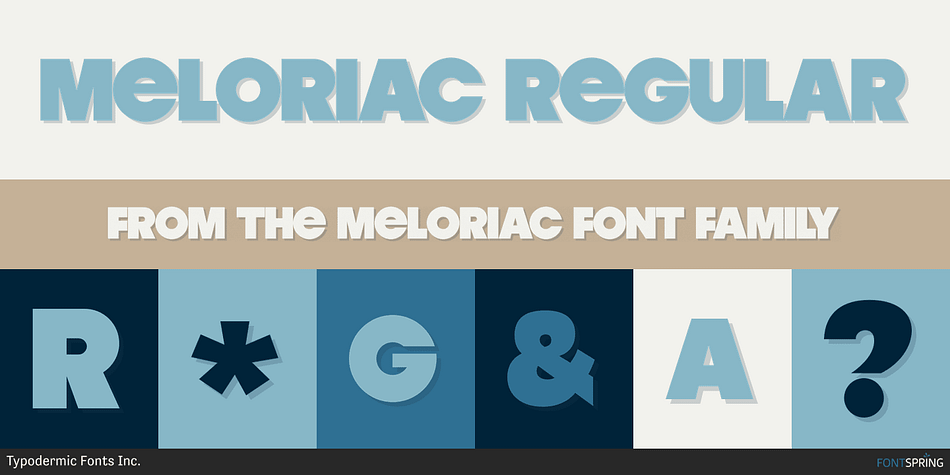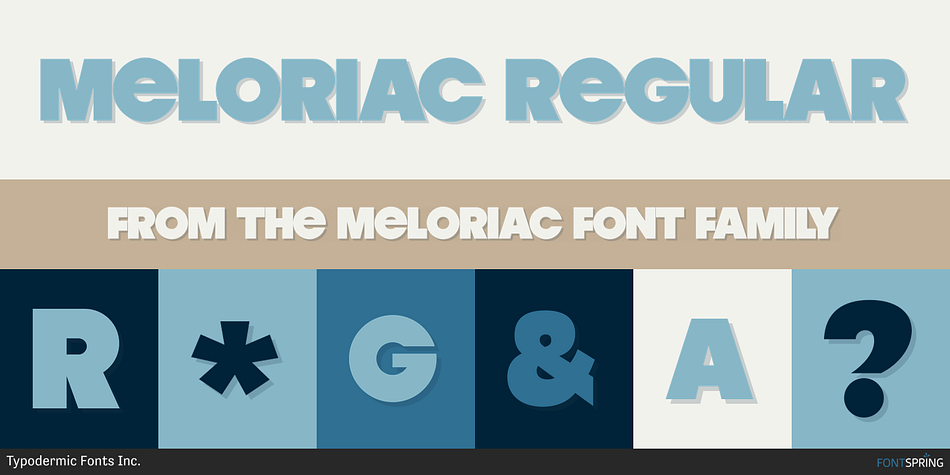
Meloriac is a display sans font published by Typodermic Fonts Inc.
Meloriac is a unicase display typeface with a pseudo-retro feel. It’s an extra-heavy tribute to Futura Extra Bold and Avant Garde Gothic Bold; perfect for tight headlines and logos. Meloriac is a strong and modern-looking typeface that has become a reliable staple in the toolbox of today’s graphic designer. We recommend tracking it wider (adding more space) on subheadings for improved clarity. Try your application’s OpenType stylistic alternates feature to access filled letter variations and an alternative ampersand. Most Latin-based European, Vietnamese, Greek, and most Cyrillic-based writing systems are supported, including the following languages. Afaan Oromo, Afar, Afrikaans, Albanian, Alsatian, Aromanian, Aymara, Azerbaijani, Bashkir, Bashkir (Latin), Basque, Belarusian, Belarusian (Latin), Bemba, Bikol, Bosnian, Breton, Bulgarian, Buryat, Cape Verdean, Creole, Catalan, Cebuano, Chamorro, Chavacano, Chichewa, Crimean Tatar (Latin), Croatian, Czech, Danish, Dawan, Dholuo, Dungan, Dutch, English, Estonian, Faroese, Fijian, Filipino, Finnish, French, Frisian, Friulian, Gagauz (Latin), Galician, Ganda, Genoese, German, Gikuyu, Greenlandic, Guadeloupean Creole, Haitian Creole, Hawaiian, Hiligaynon, Hungarian, Icelandic, Igbo, Ilocano, Indonesian, Irish, Italian, Jamaican, Kaingang, Khalkha, Kalmyk, Kanuri, Kaqchikel, Karakalpak (Latin), Kashubian, Kazakh, Kikongo, Kinyarwanda, Kirundi, Komi-Permyak, Kurdish, Kurdish (Latin), Kyrgyz, Latvian, Lithuanian, Lombard, Low Saxon, Luxembourgish, Maasai, Macedonian, Makhuwa, Malay, Maltese, Māori, Moldovan, Montenegrin, Nahuatl, Ndebele, Neapolitan, Norwegian, Novial, Occitan, Ossetian (Latin), Papiamento, Piedmontese, Polish, Portuguese, Quechua, Rarotongan, Romanian, Romansh, Russian, Rusyn, Sami, Sango, Saramaccan, Sardinian, Scottish Gaelic, Serbian, Serbian (Latin), Shona, Sicilian, Silesian, Slovak, Slovenian, Somali, Sorbian, Sotho, Spanish, Swahili, Swazi, Swedish, Tagalog, Tahitian, Tajik, Tatar, Tetum, Tongan, Tshiluba, Tsonga, Tswana, Tumbuka, Turkish, Turkmen (Latin), Tuvaluan, Ukrainian, Uzbek, Uzbek (Latin), Venda, Venetian, Vepsian, Vietnamese, Võro, Walloon, Waray-Waray, Wayuu, Welsh, Wolof, Xavante, Xhosa, Yapese, Zapotec, Zarma, Zazaki, Zulu and Zuni.